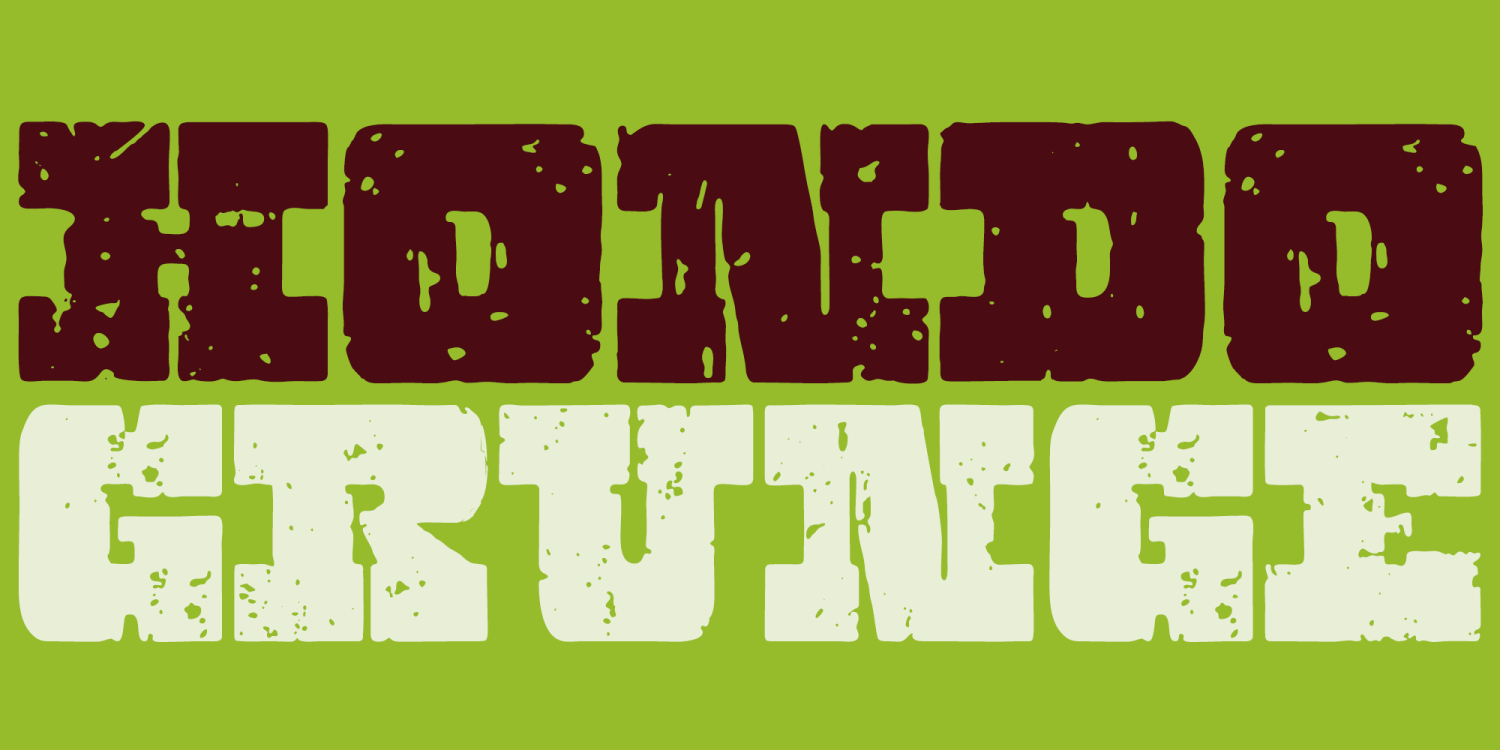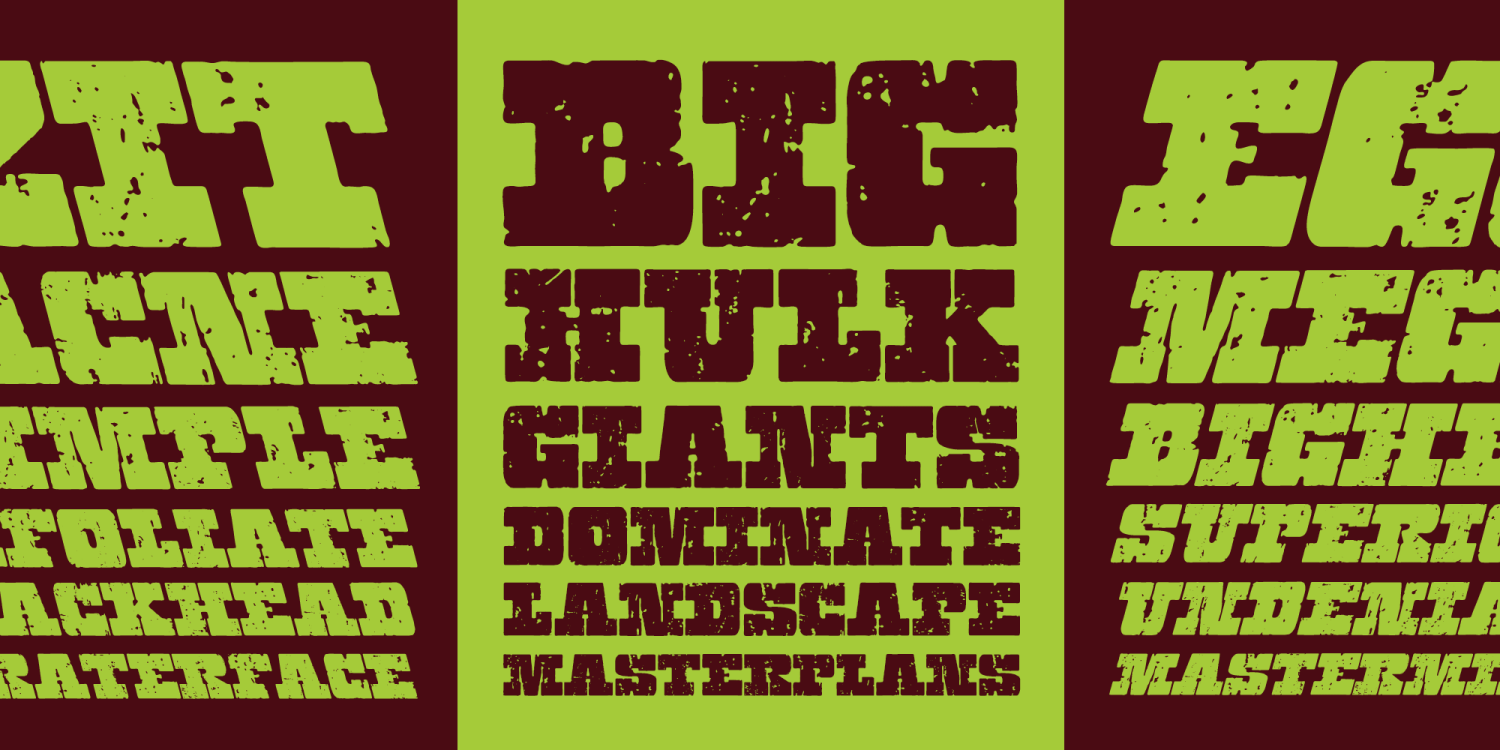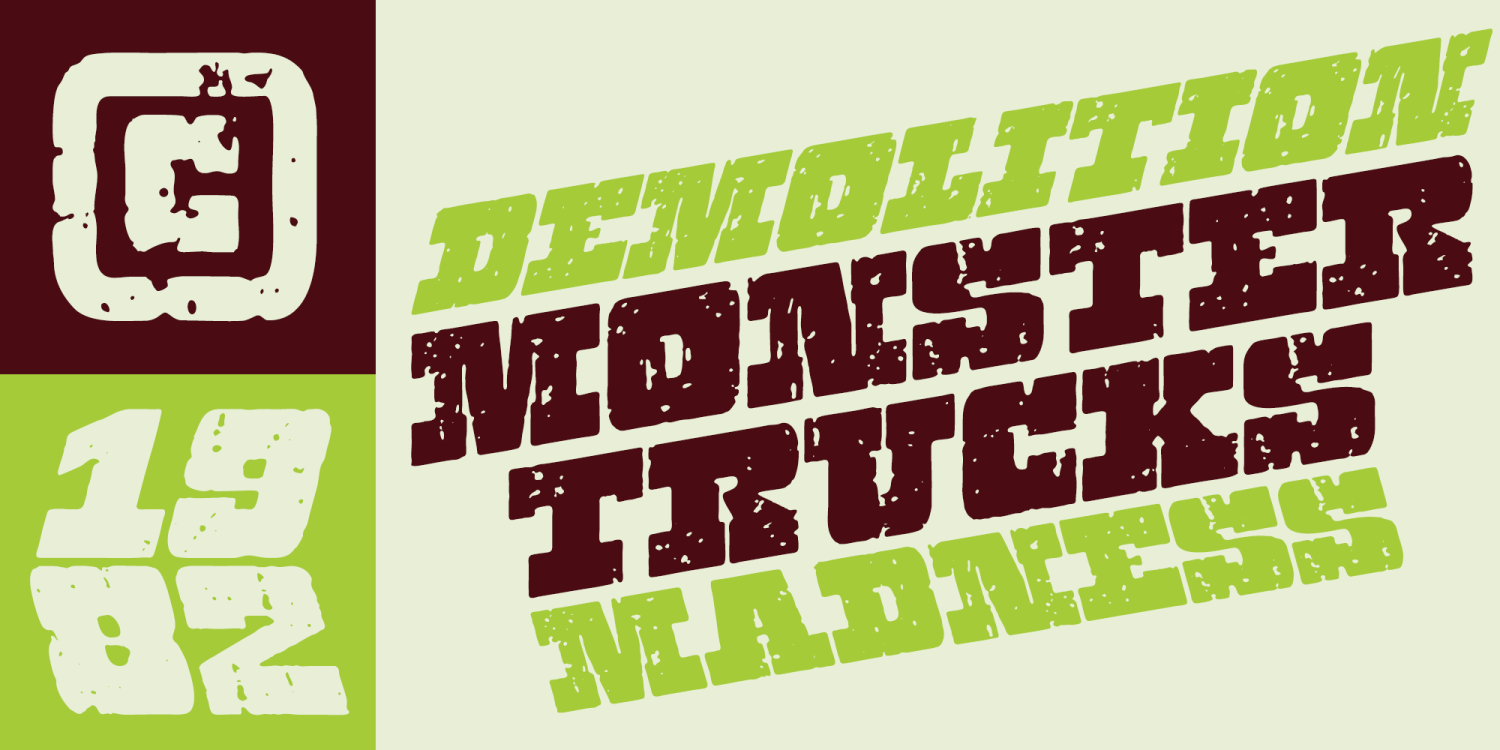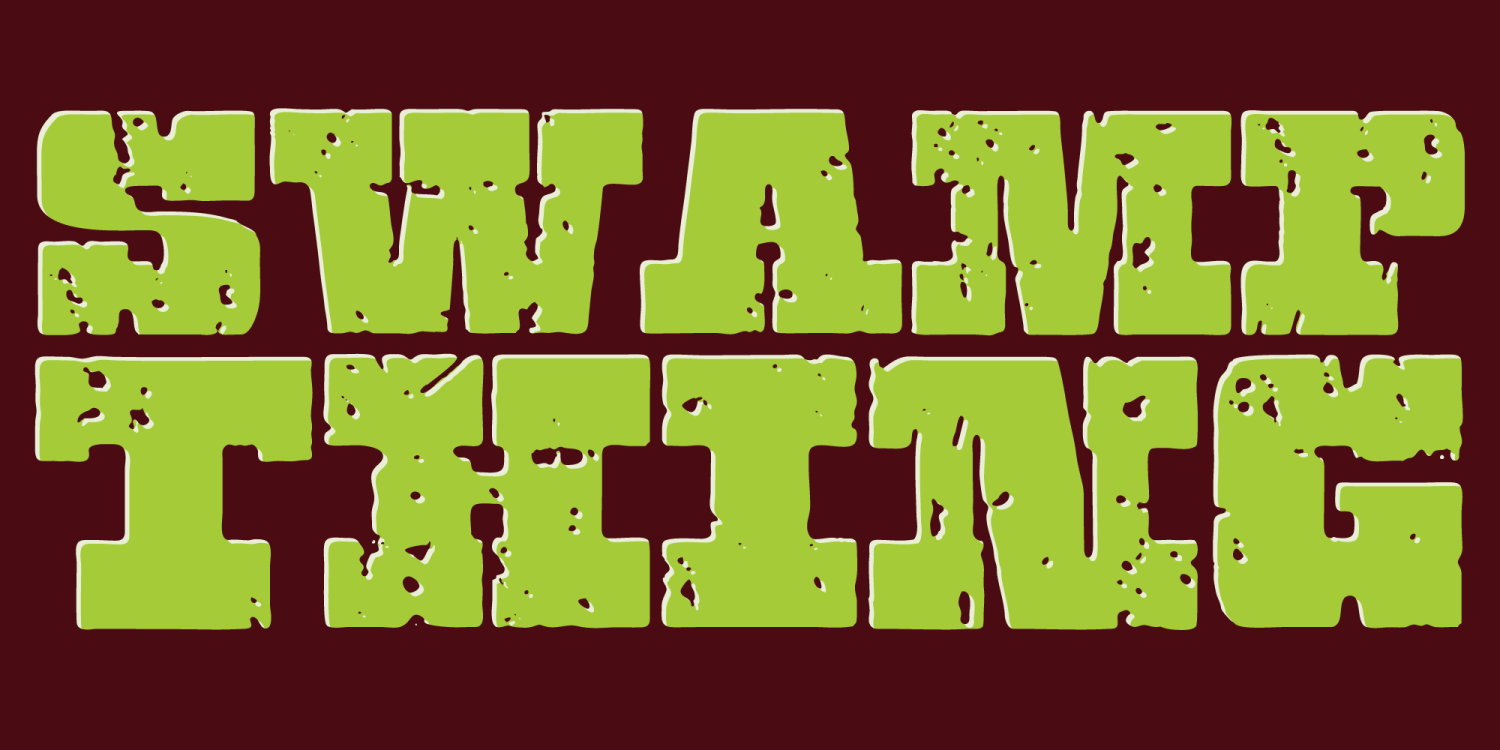
Hondo Grunge
The Hondo Grunge fonts are a collection of ultrabold eroded slab serif typefaces with a dynamic look and extended functionality. Accented with decorative and functional inktraps and complete with Slant and Backslant variants, this heavyweight has a high performance hardcore edge to it. Ideal for titling, poster work, logos, and small bits of copy. The typestyles contain a complete alternate set of base characters, which by enabling contextual alternates will force the typeface to continually change between the original & alternate character sets for a more spontaneous look.